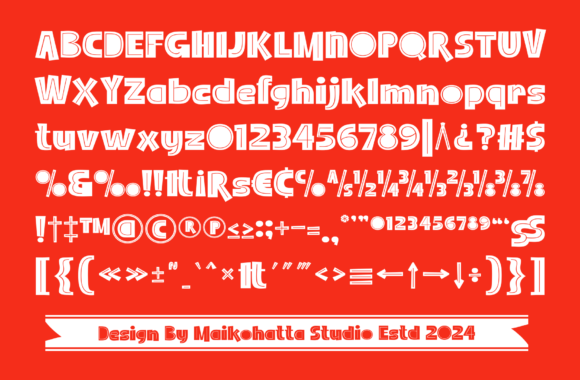
Muiko Font
Muiko Font – Black Display. This font reflects joy, cheerfulness, and a light atmosphere with a handwritten style often found in comics or cartoons.
This font is perfect for projects that highlight playfulness and fun elements, such as poster designs, invitation cards, comics, or promotional materials aimed at a younger audience or those looking for a fun feel.